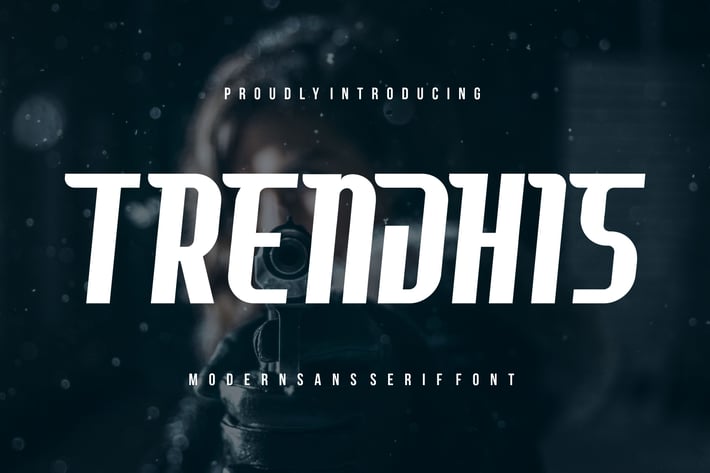
Trendhis - Modern Sans Font
Introducing our new product Trendhis - Modern Sans Font
Trendhis - Modern Sans Font & Logo Font and authentic display font.